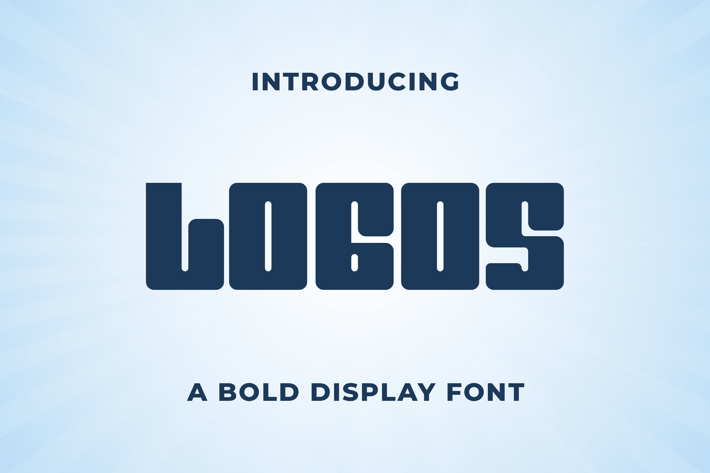
Logos - A Bold Display Font
Logos is a striking and robust display font designed to make a powerful impact in your design projects. With its bold shapes and strong letterforms, Logos is perfect for attention-grabbing headlines, dynamic branding, eye-catching posters, and standout packaging. This font combines a modern aesthetic with high visual impact, ensuring your work stands out with authority and confidence.
Crafted with precision, Logos features bold and dynamic characters that offer excellent readability and visual prominence. Its strong design makes it ideal for headlines and display text, providing a commanding and memorable presence. The font’s versatility allows it to adapt seamlessly to various design contexts, from digital screens to printed materials, making it a valuable asset for any designer aiming to create impactful and bold visuals.
Elevate your design projects with Logos, a font that embodies the perfect blend of modernity and strength. Its bold style and adaptability make it an essential addition to any designer’s toolkit for creating commanding and captivating visuals. Enhance your work with Logos and experience the power of bold display typography.
Logos is a striking and robust display font designed to make a powerful impact in your design projects. With its bold shapes and strong letterforms, Logos is perfect for attention-grabbing headlines, dynamic branding, eye-catching posters, and standout packaging. This font combines a modern aesthetic with high visual impact, ensuring your work stands out with authority and confidence.
Crafted with precision, Logos features bold and dynamic characters that offer excellent readability and visual prominence. Its strong design makes it ideal for headlines and display text, providing a commanding and memorable presence. The font’s versatility allows it to adapt seamlessly to various design contexts, from digital screens to printed materials, making it a valuable asset for any designer aiming to create impactful and bold visuals.
Elevate your design projects with Logos, a font that embodies the perfect blend of modernity and strength. Its bold style and adaptability make it an essential addition to any designer’s toolkit for creating commanding and captivating visuals. Enhance your work with Logos and experience the power of bold display typography.